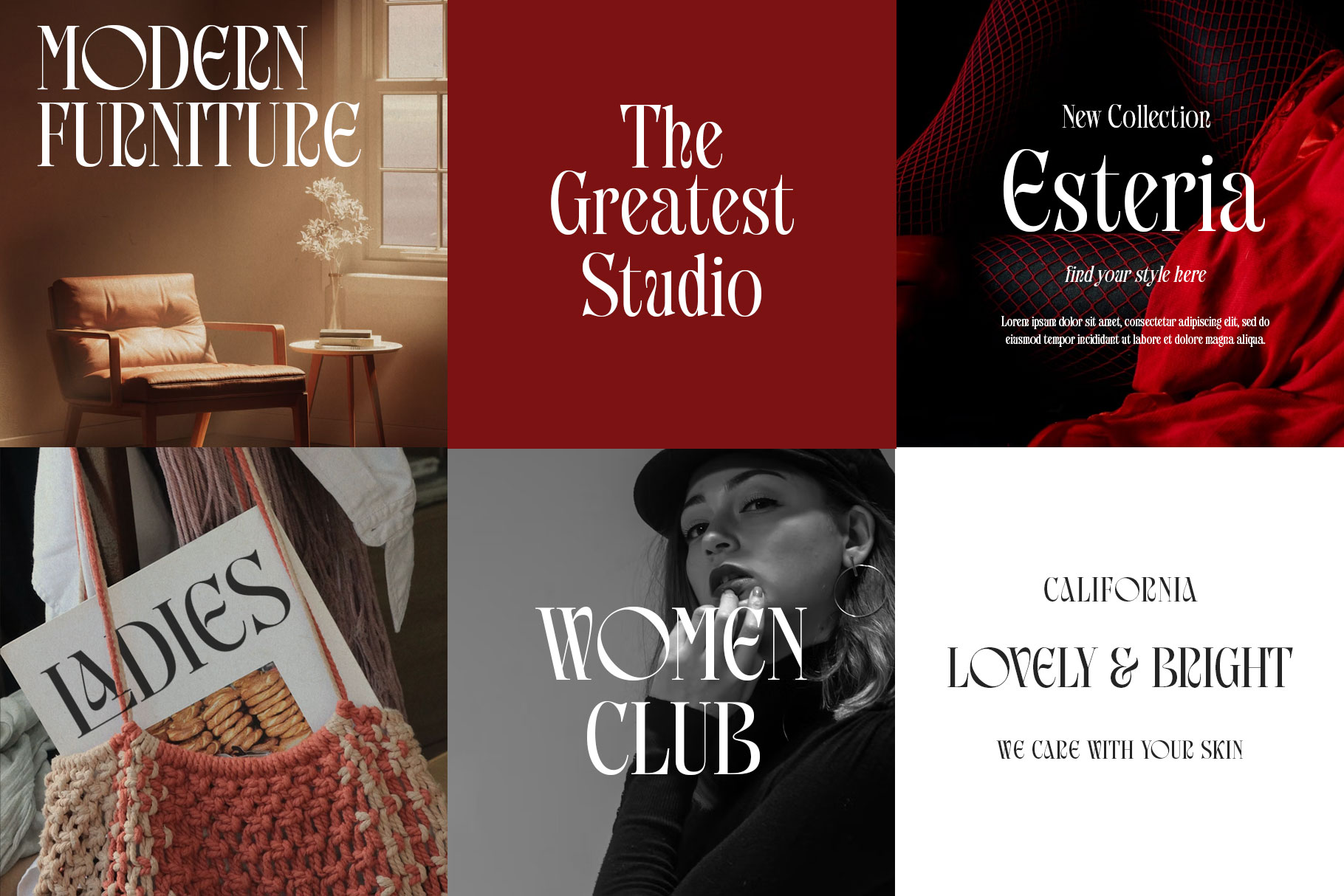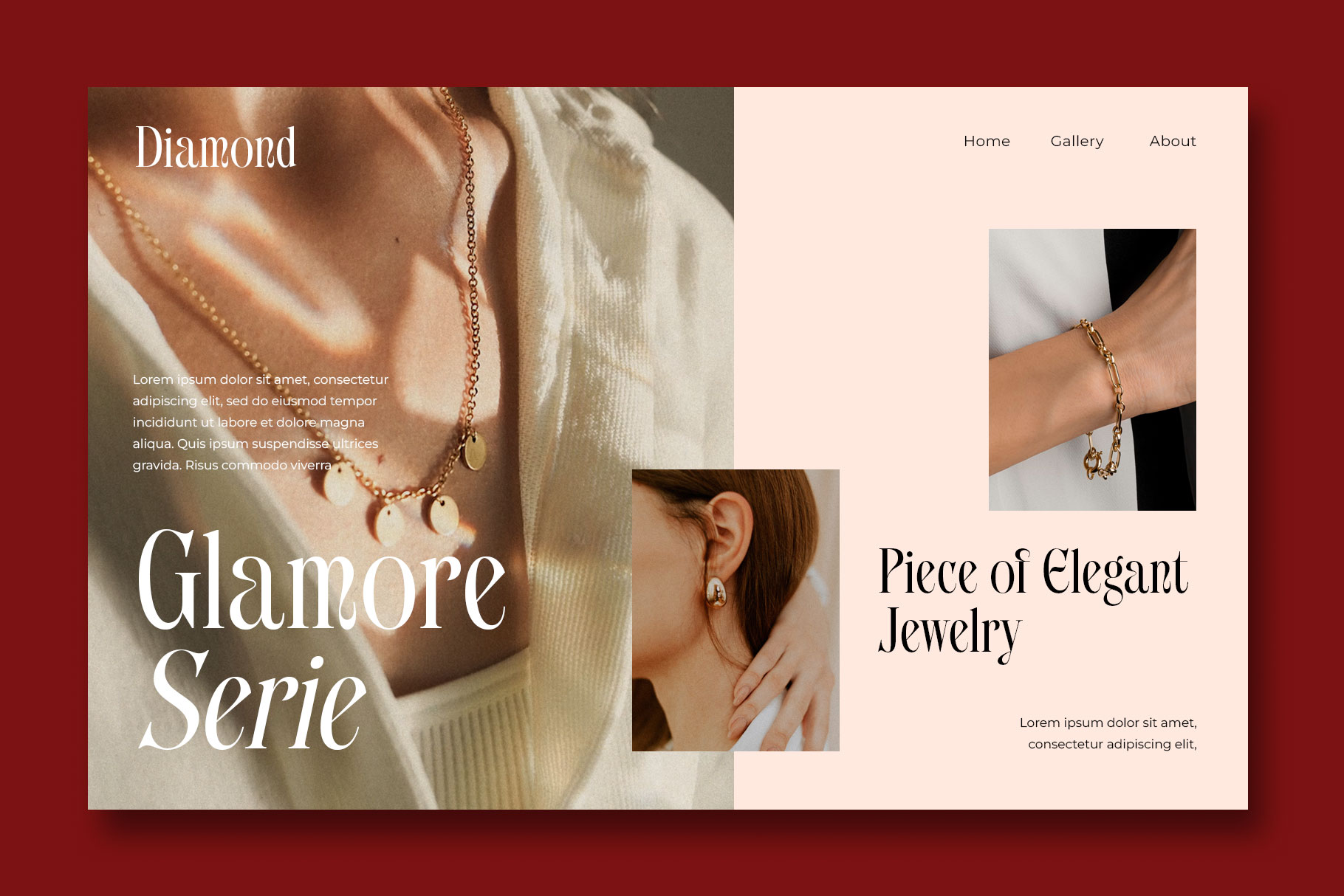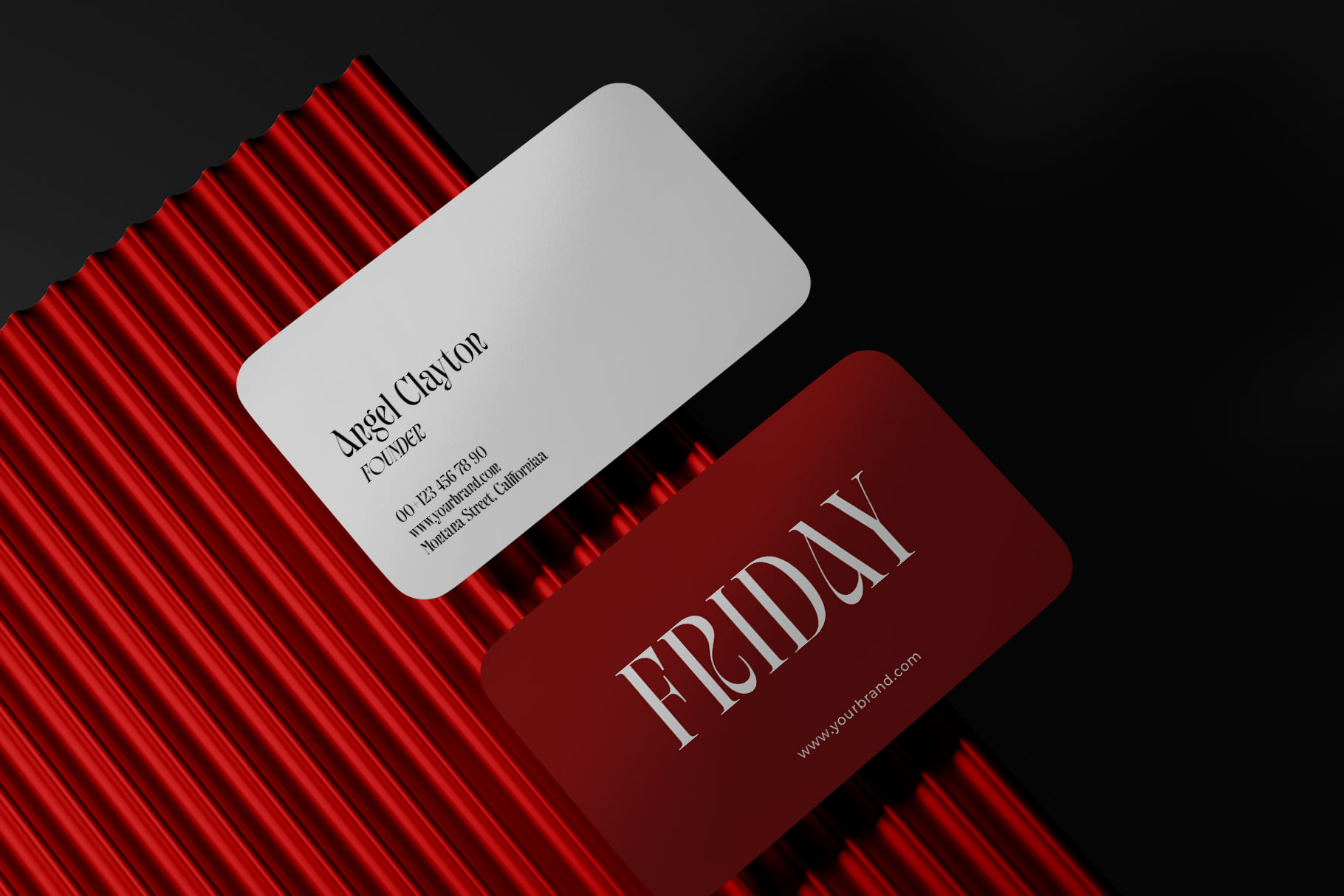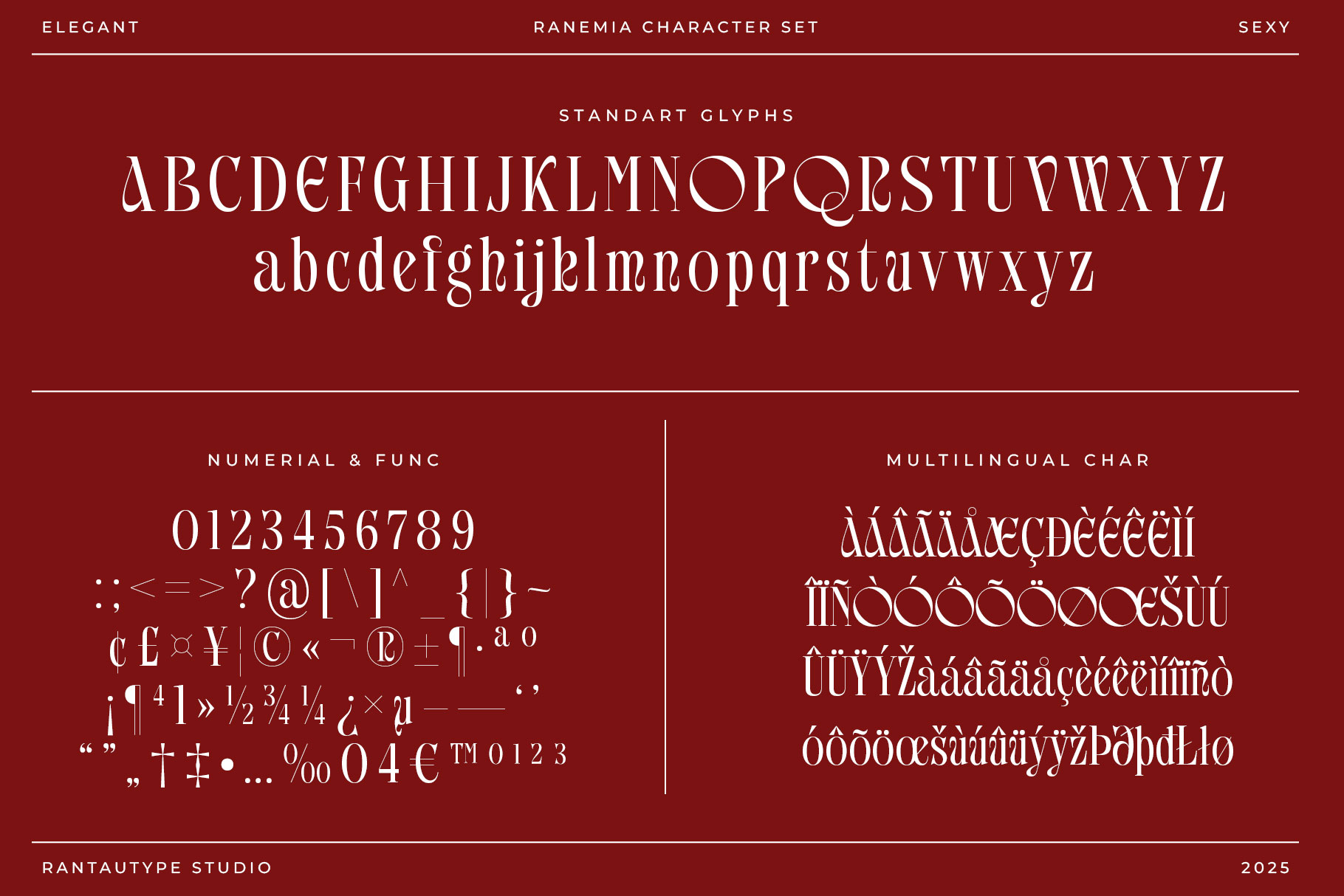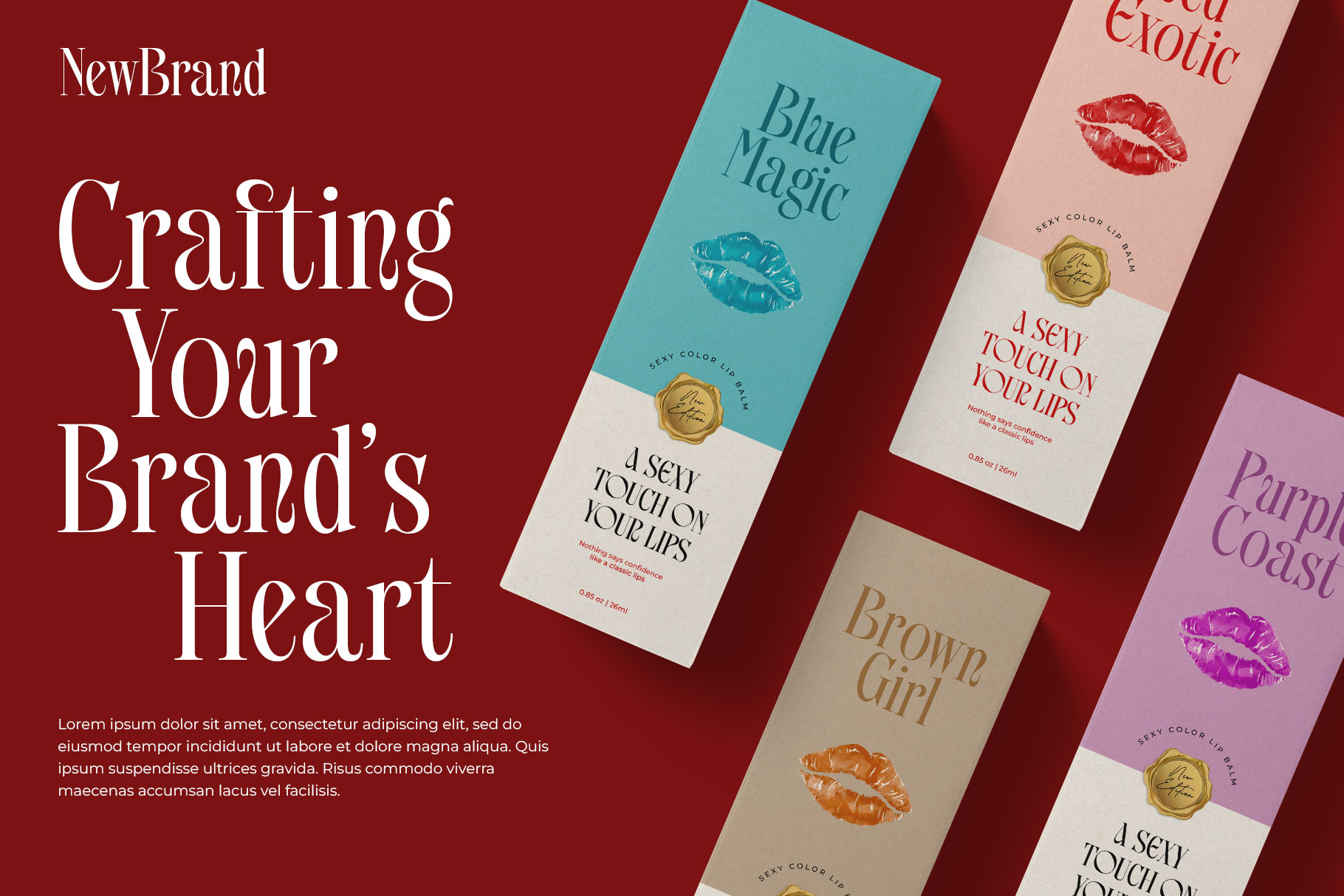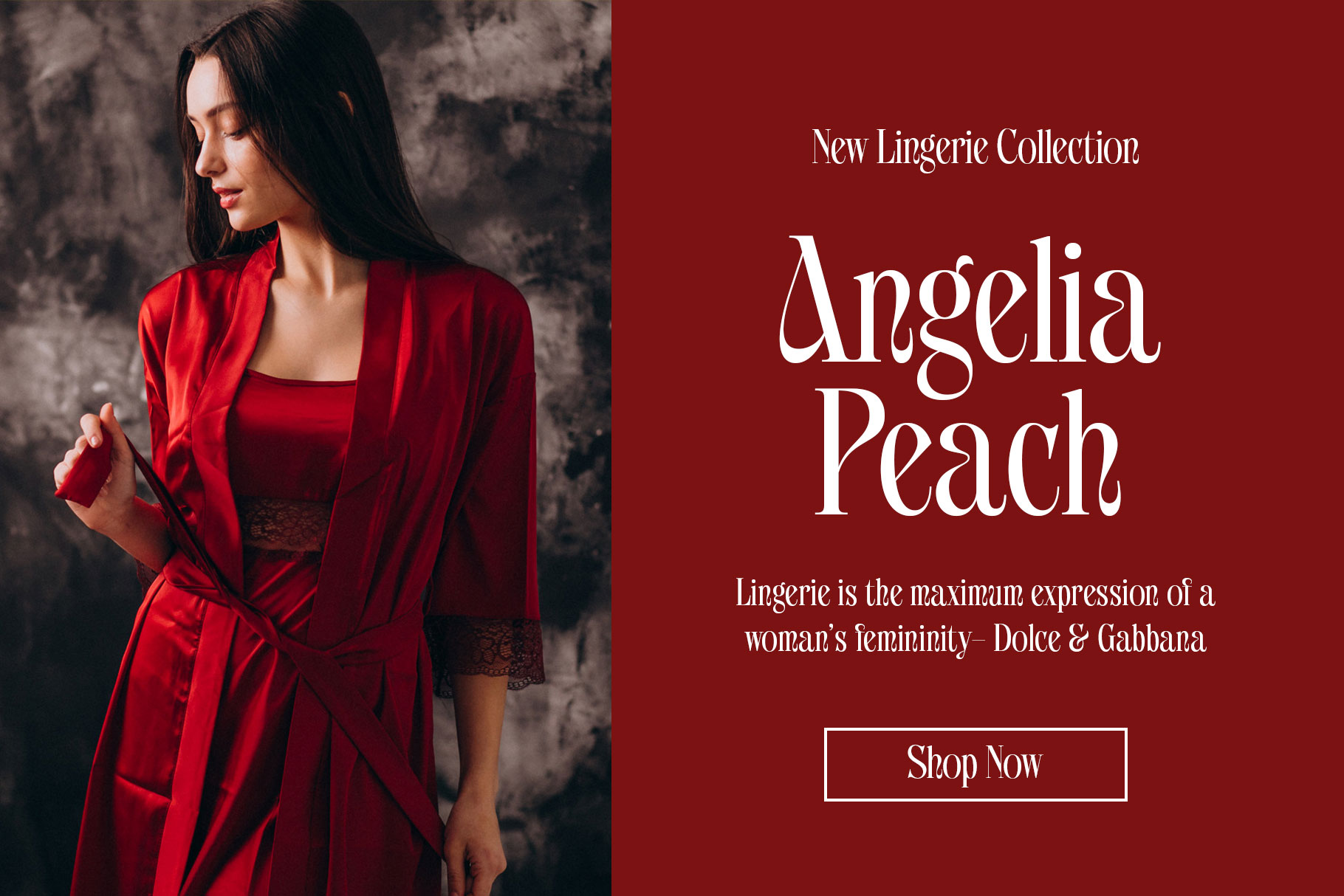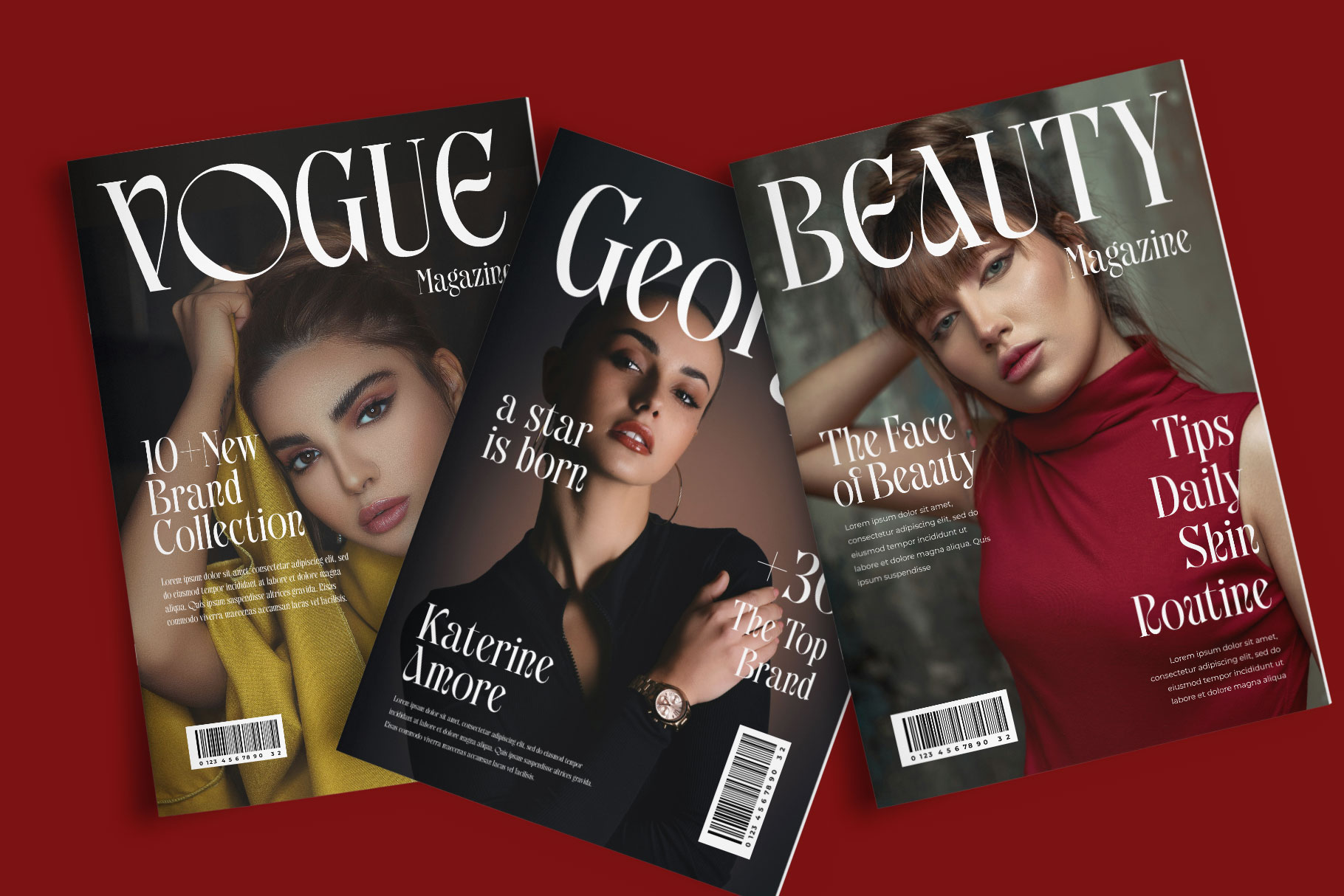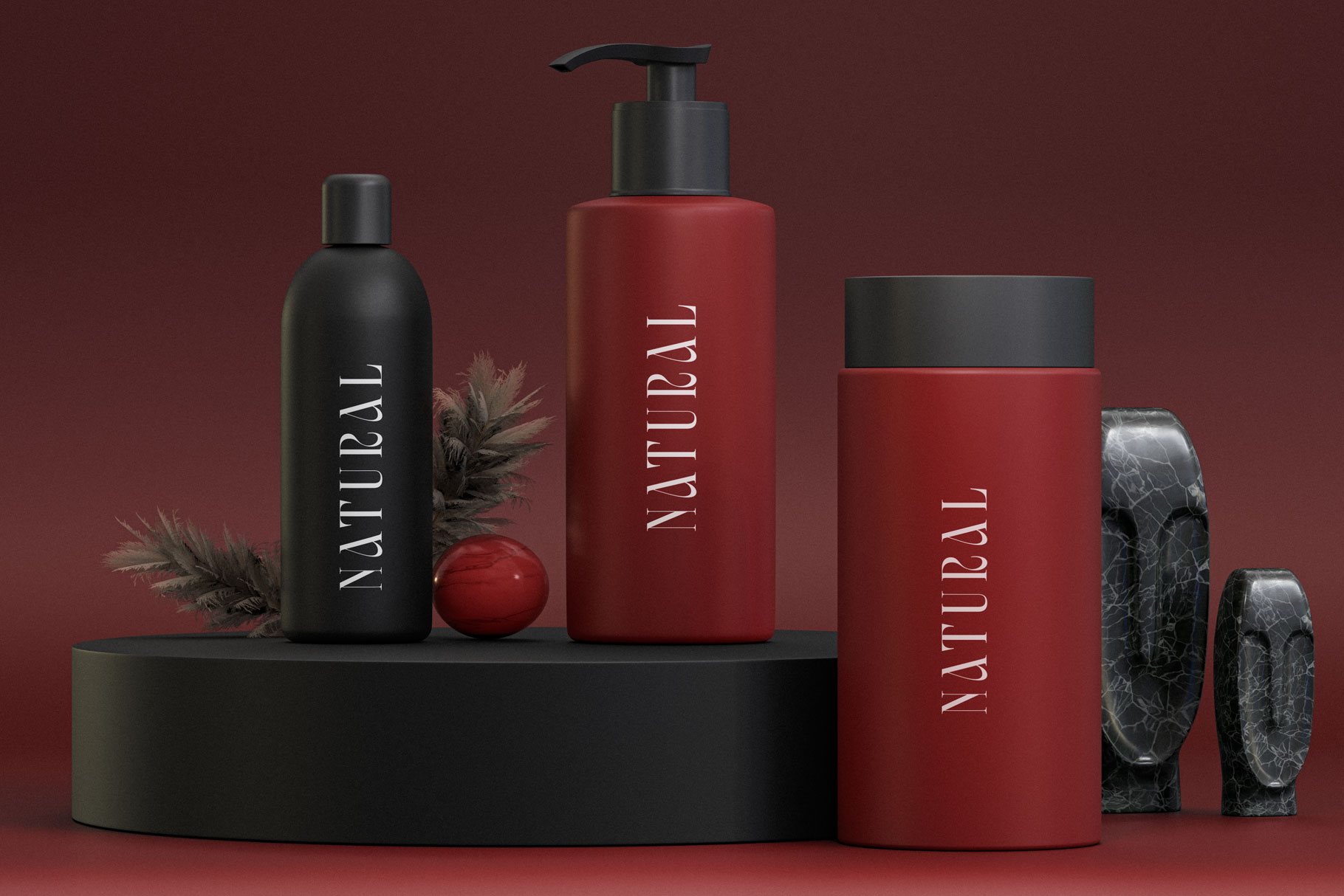
Ranemia Luxury Sexy Serif Font
Ranemia is elegant serif font with grace and elegance character style. Ranemia bring typeface with sexy look to create your design project stand out!. Ranemia is a perfectly choice for any creative endeavor, chic, lifestyle design such as logotype, advertisements, watermark on photography, stationery, branding project, display and magazine, invitation, corporate brand, product design, label, business project and many other project with elegant touch.